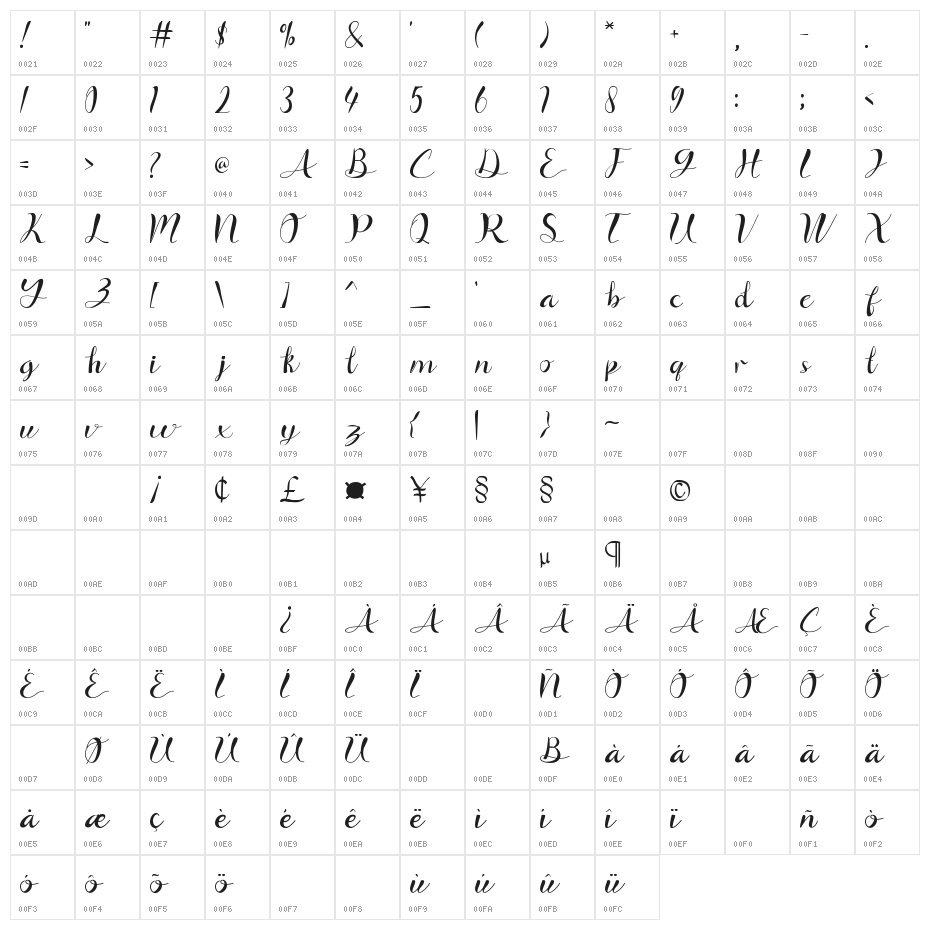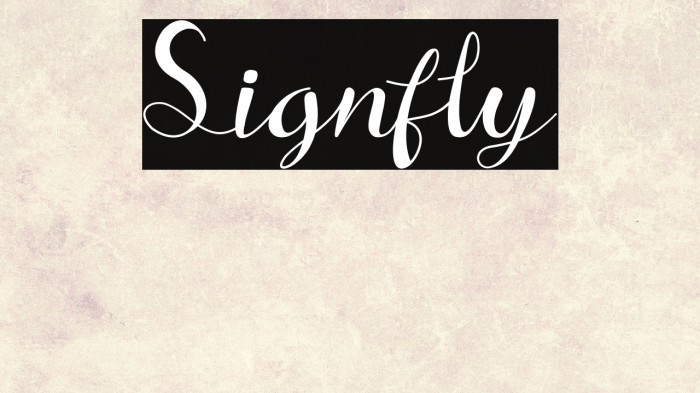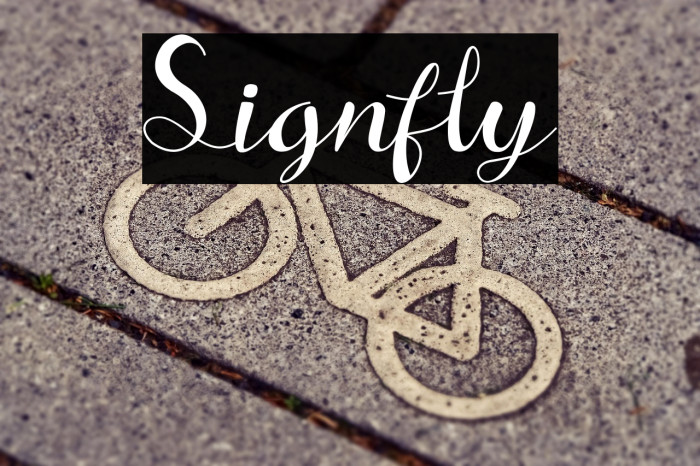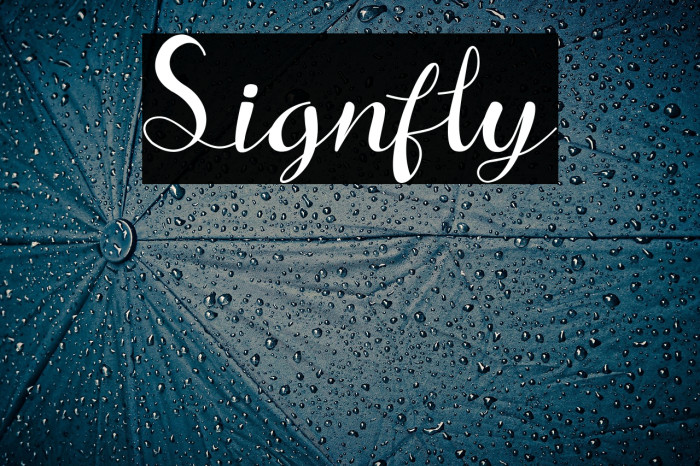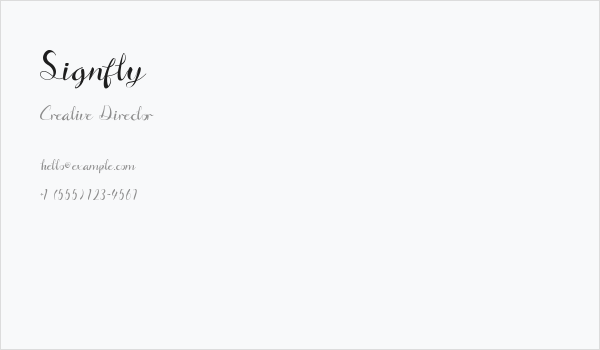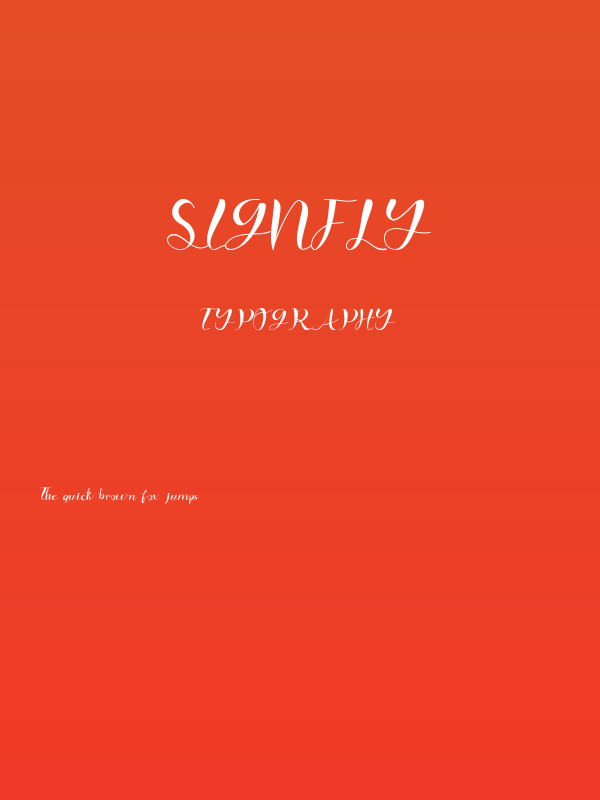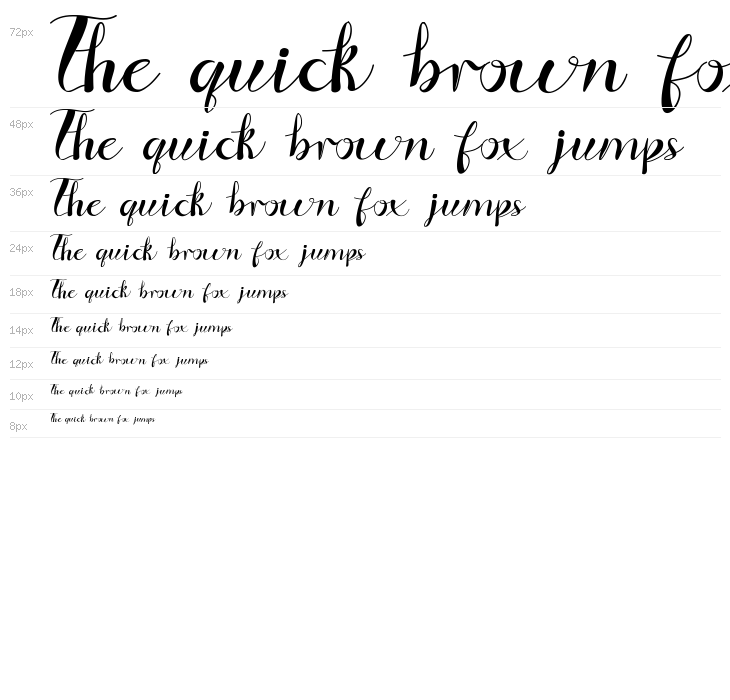
Signfly Font
Signfly Description
This font exhibits a flowing, cursive style with elegant, sweeping strokes that give it a sophisticated and artistic appearance. The uppercase letters are characterized by their tall, slender forms and graceful loops, while the lowercase letters maintain a consistent fluidity and balance. The numerals are designed with a similar flair, featuring smooth curves and a harmonious rhythm. Special characters are integrated seamlessly, maintaining the overall aesthetic. This font's design is both expressive and refined, making it suitable for a variety of creative applications.